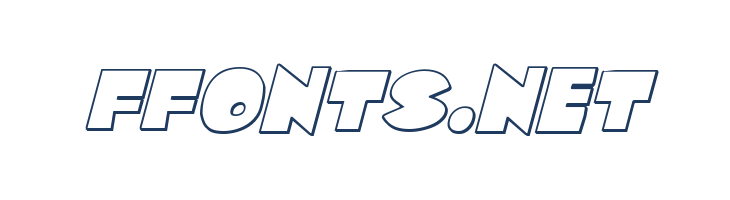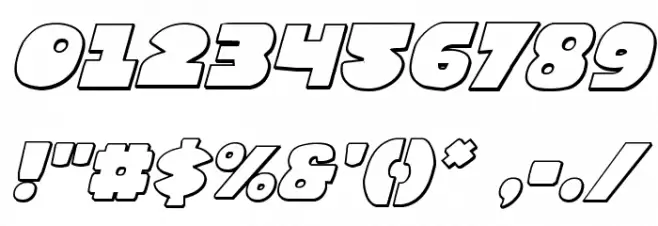
Zounderkite Outline Italic Font
Zounderkite Outline Italic Description
This font features a bold, outlined style with a playful and dynamic appearance. The characters are designed with a slight italic slant, adding a sense of motion and energy. The outlines are thick and uniform, giving the font a strong presence. The uppercase and lowercase letters maintain a consistent style, with rounded edges and a modern aesthetic. The numbers and special characters follow the same design principles, ensuring a cohesive look across all glyphs. This font is ideal for projects that require a bold statement or a fun, engaging visual element.
A bold, outlined, italic font with a playful and dynamic style from Cartoon fonts.
- Proposed Projects: Ideal for posters, headlines, logos, and branding materials that require a bold and engaging look.